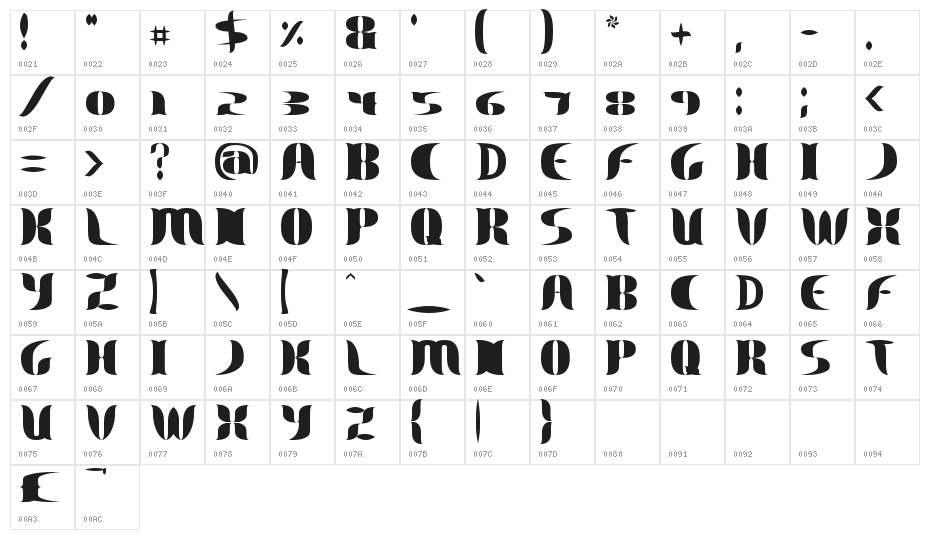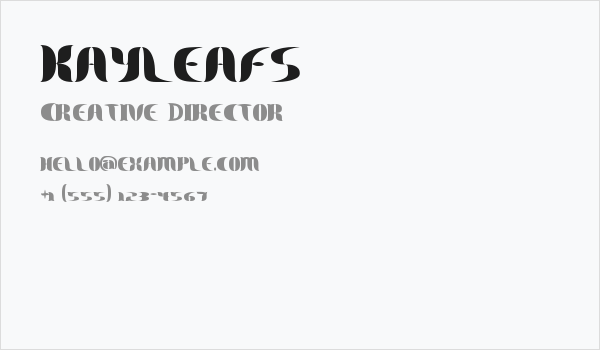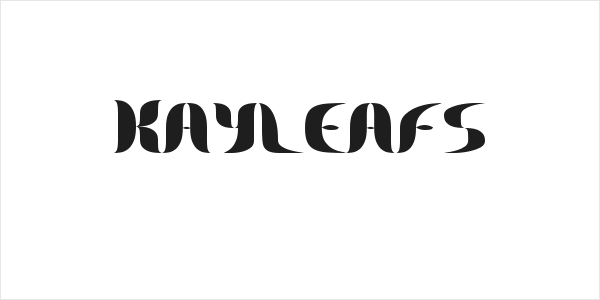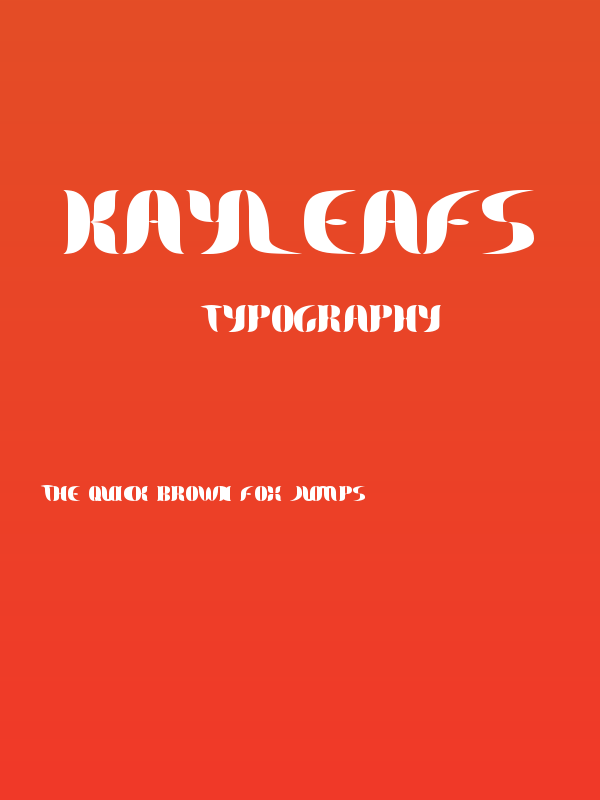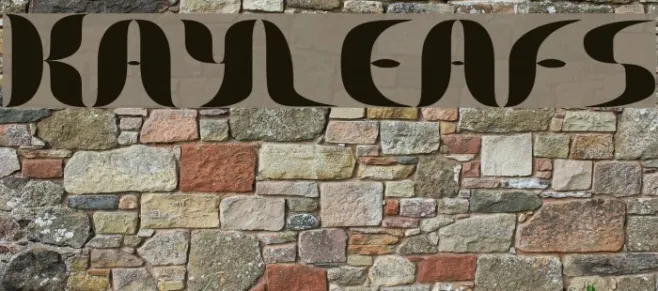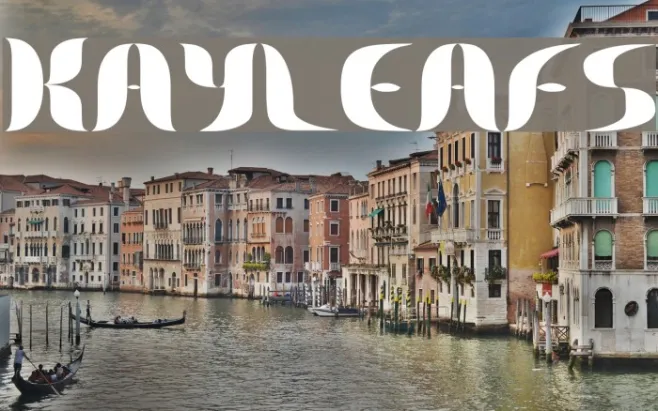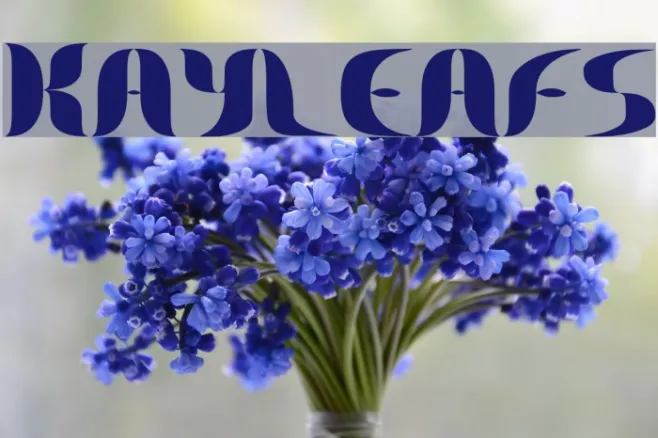
Kayleafs Font
Kayleafs Description
This font features a bold and artistic design with a unique, leaf-like motif integrated into each character. The strokes are thick and rounded, creating a sense of movement and fluidity. The uppercase and lowercase letters maintain a consistent style, with the distinctive leaf shapes adding a decorative touch. The numbers and special characters follow the same design principles, ensuring a cohesive look across all glyphs. This font's playful yet sophisticated appearance makes it ideal for creative projects that require a standout typeface.
| Proposed Projects | Ideal for branding, posters, album covers, and any project needing a bold, artistic touch. |